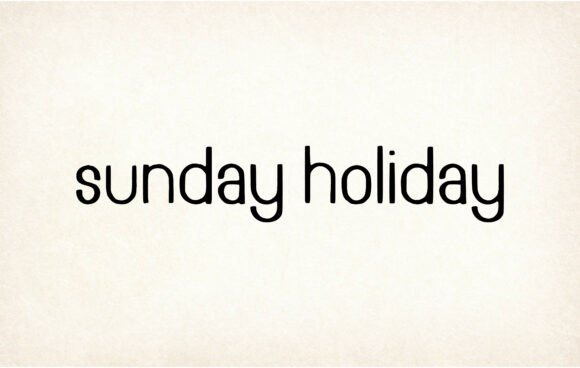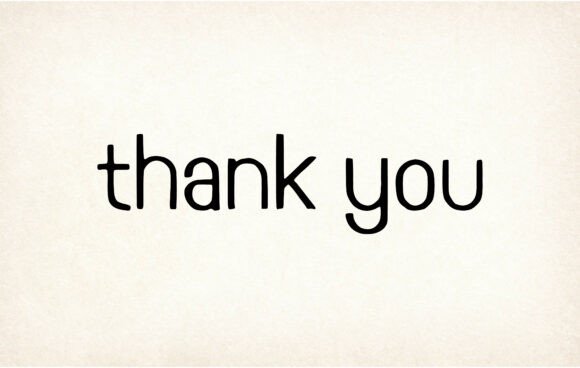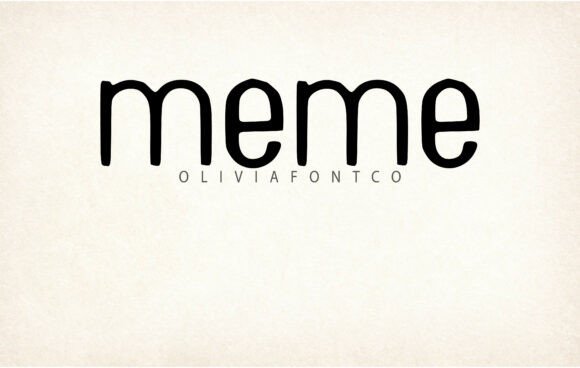
Introduction to Meme Font
meme Expertly designed to be a true favorite, this font has the potential to take your creative ideas to the highest level This font is legible and looks great as a title or body text.
This font would be perfect for many different designs for magazine headlines, t-shirt,social media, branding, wedding invitations, cards, etc .
Key Features of Meme Font
Why Choose Meme Font?
Meme Font offers exceptional quality and versatility, making it a valuable addition to your design toolkit. Whether you’re creating for personal projects or commercial use, Meme Font delivers professional results.